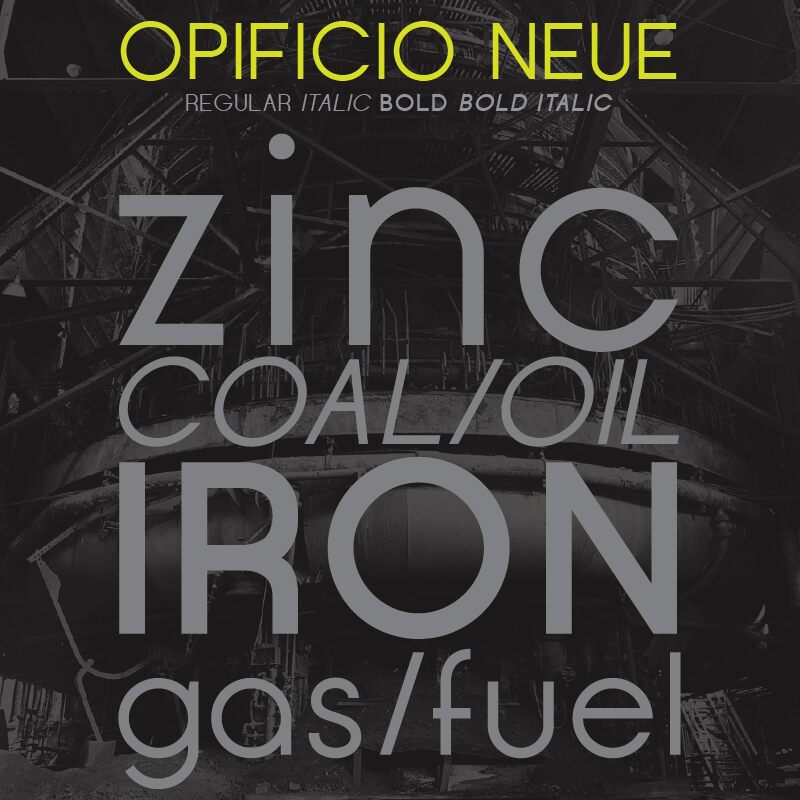
Opificio Neue is a striking sans-serif font that exudes a harmonious blend of modern elegance and timeless appeal. Designed by Andrea Cerboneschi for the monocromo studio, this font boasts a distinct aesthetic that seamlessly combines clean lines, subtle curves, and an impactful presence.
The balanced character shapes and precise kerning create a cohesive, visually appealing typographic experience across a range of applications, from editorial design to branding and digital interfaces.
Opificio Neue's versatility and refined sensibility make it a compelling choice for designers seeking to infuse their projects with a touch of sophistication and timelessness.